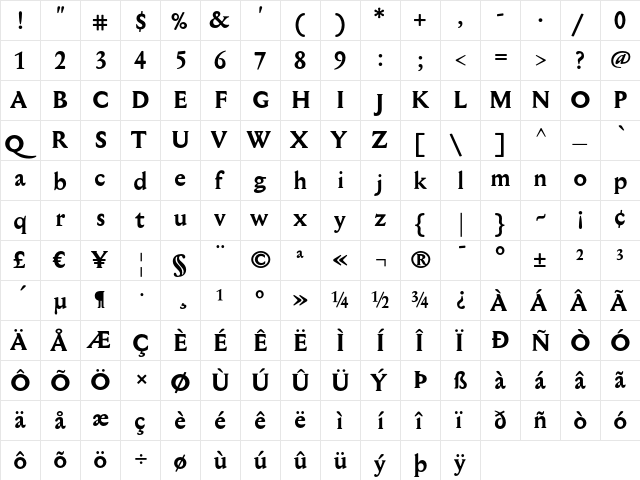
Mediaeval Bold
Design Context for Mediaeval Typeface
Mediaeval takes a measured approach to typography — its balanced proportions and neutral character make it a reliable workhorse for both digital and print work. Its bold stroke weight gives it real presence on the page.